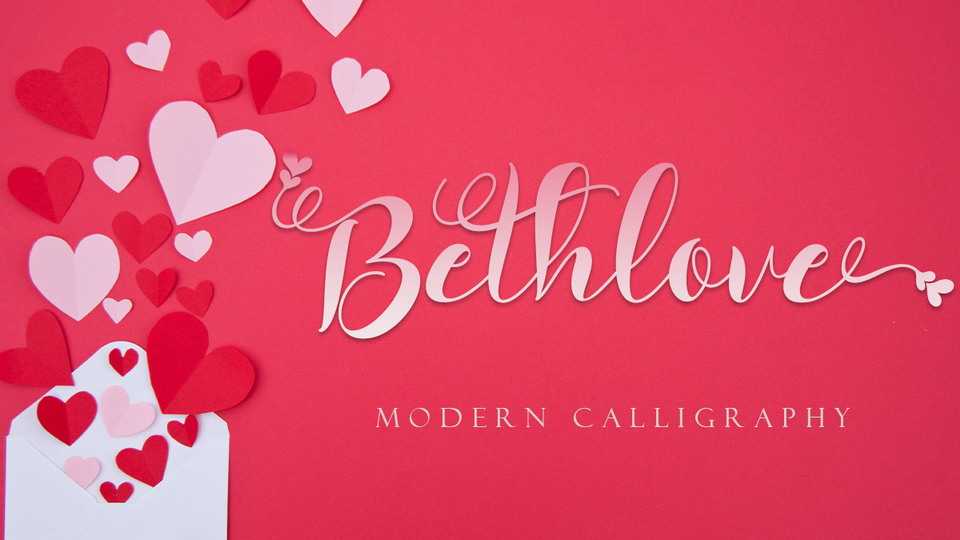
Download Bethlove font, a beautiful modern calligraphy typeface. Bethlove is complemented by a heart-shaped swash, so it looks really pretty and romantic.